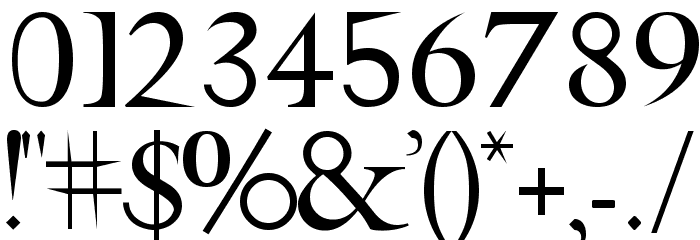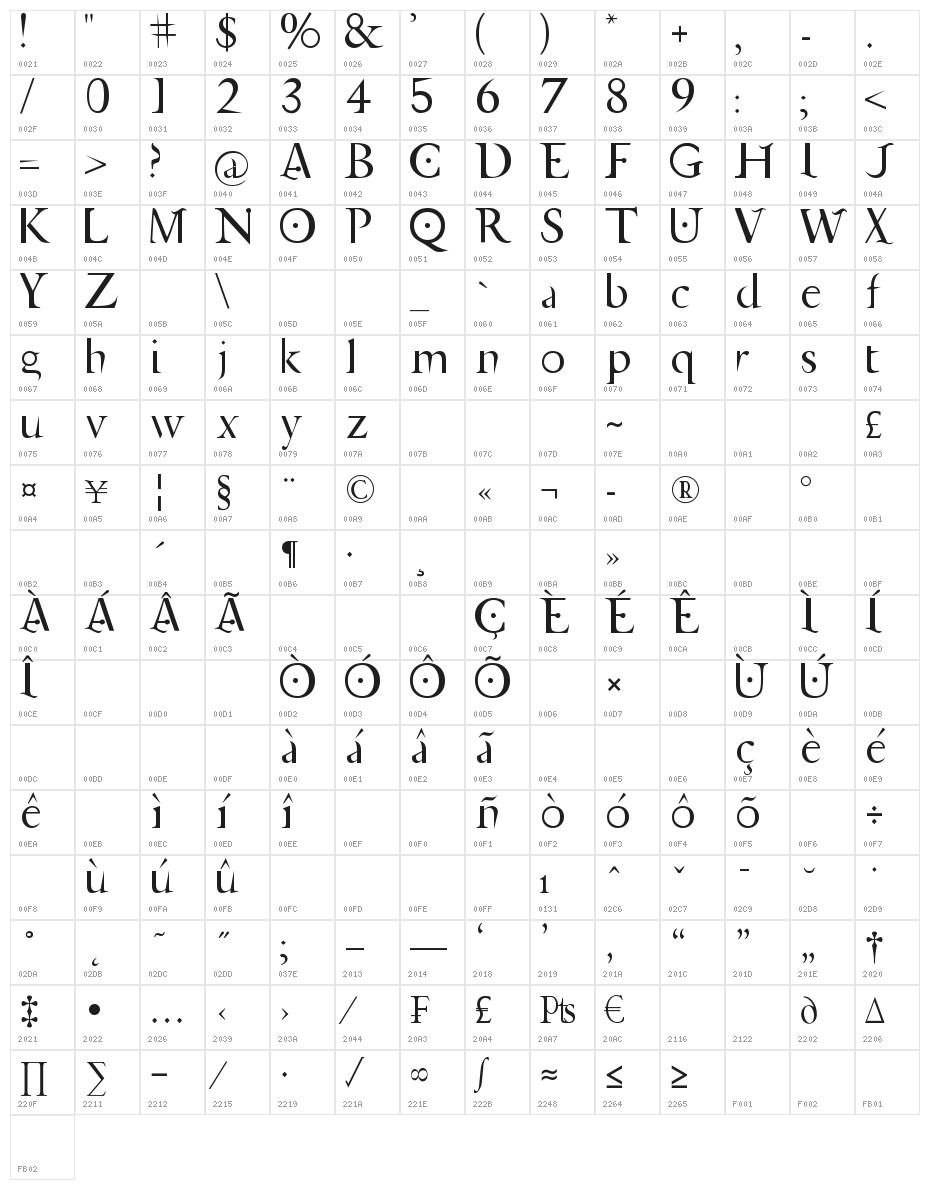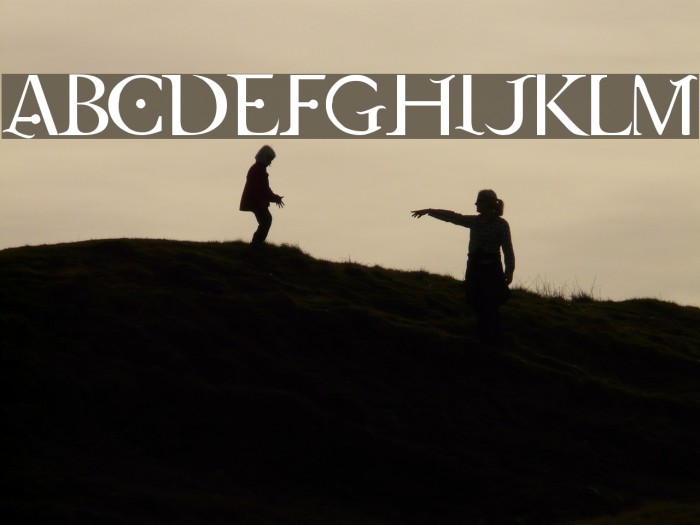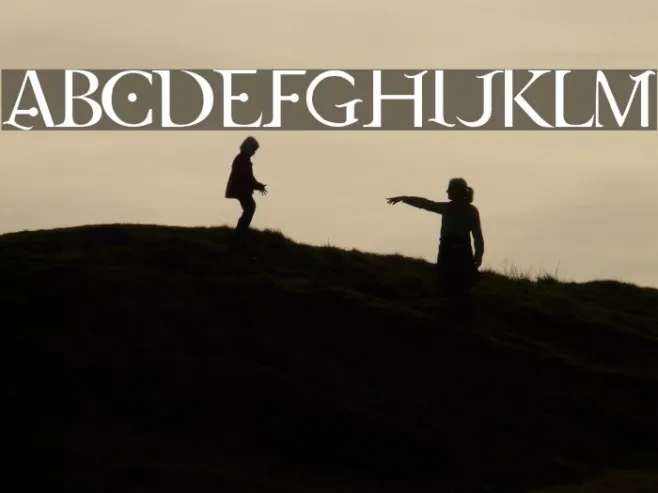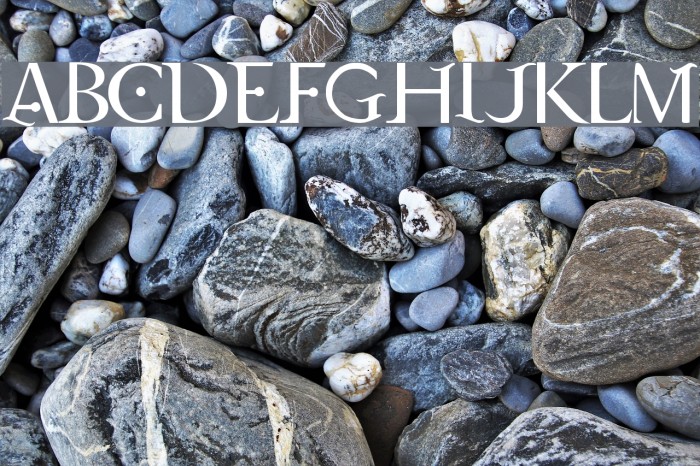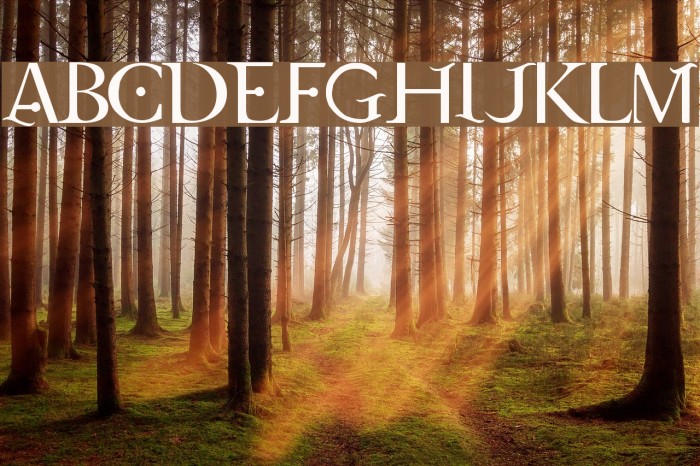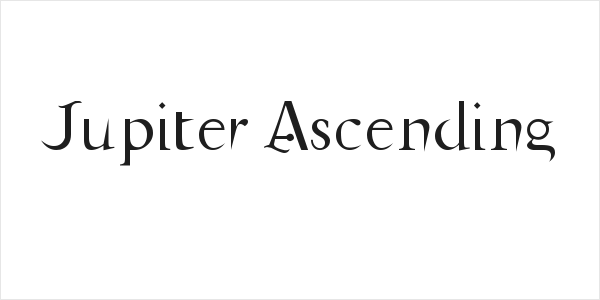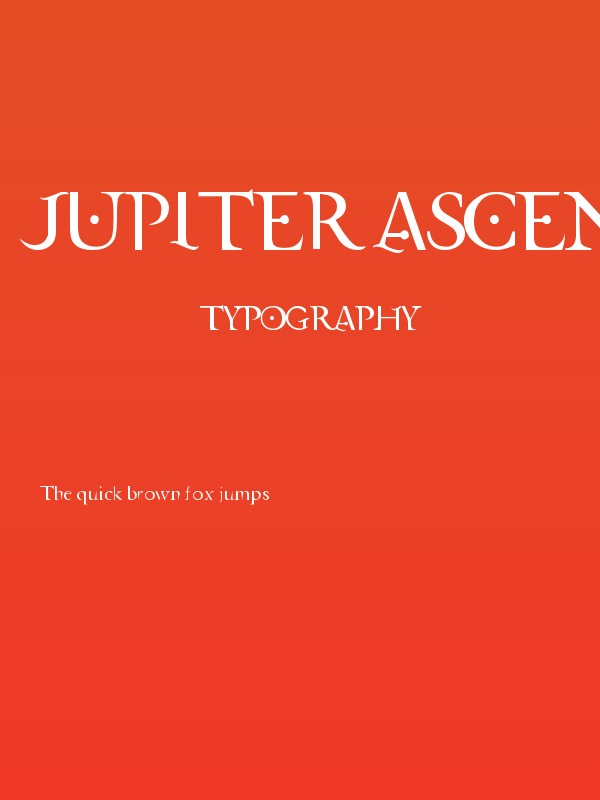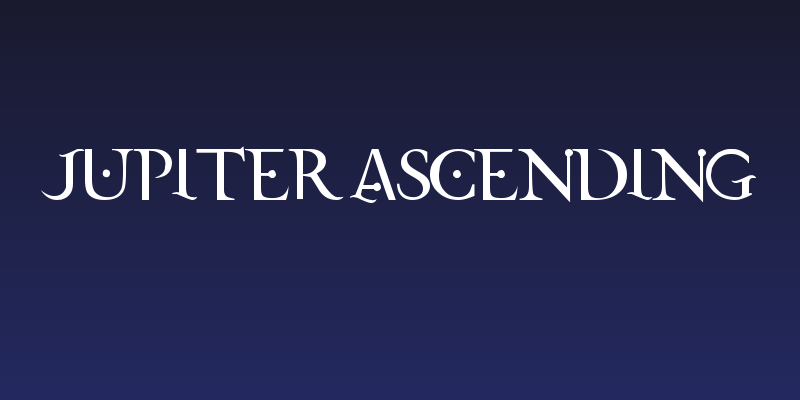
Jupiter Ascending Font
Jupiter Ascending Description
This font features a distinctive blend of classic and modern elements, characterized by its elegant serifs and unique letterforms. The uppercase letters exhibit a strong presence with sharp, angular serifs, while the lowercase letters maintain a more fluid and graceful appearance. The numerals are bold and easily readable, complementing the overall aesthetic. Special characters are designed with the same attention to detail, ensuring consistency across all glyphs. The font's style is both sophisticated and versatile, making it suitable for a variety of design applications.
| Use Case | Headlines, Logos, Editorial design |
| Proposed Projects | Ideal for branding, editorial design, book covers, and luxury product packaging. |